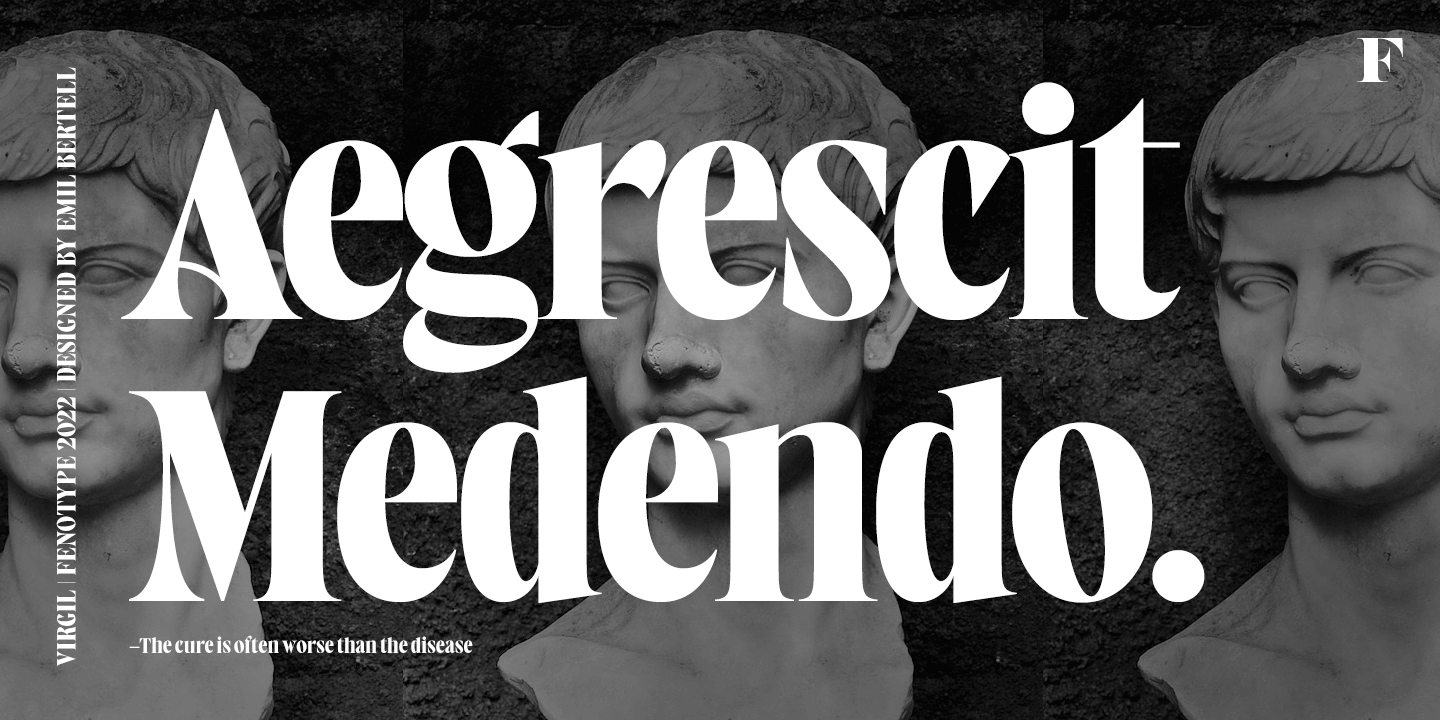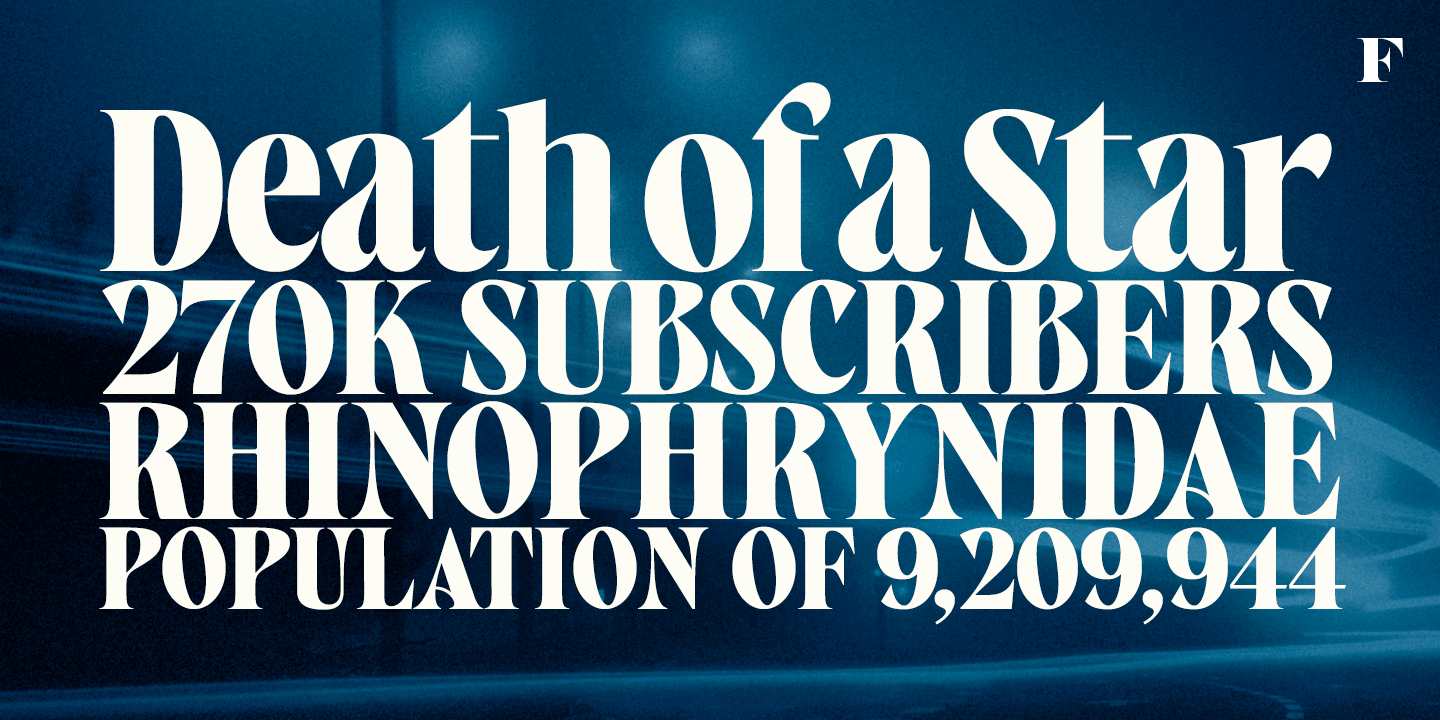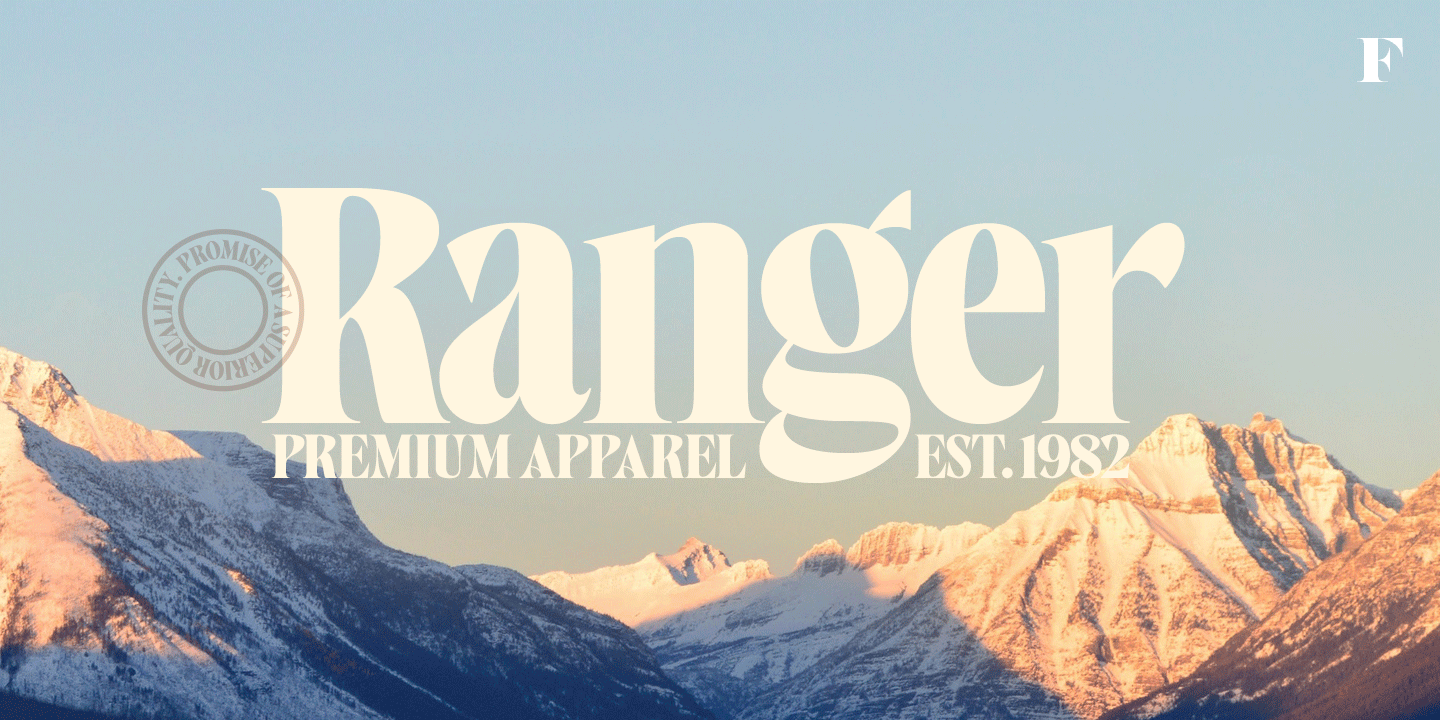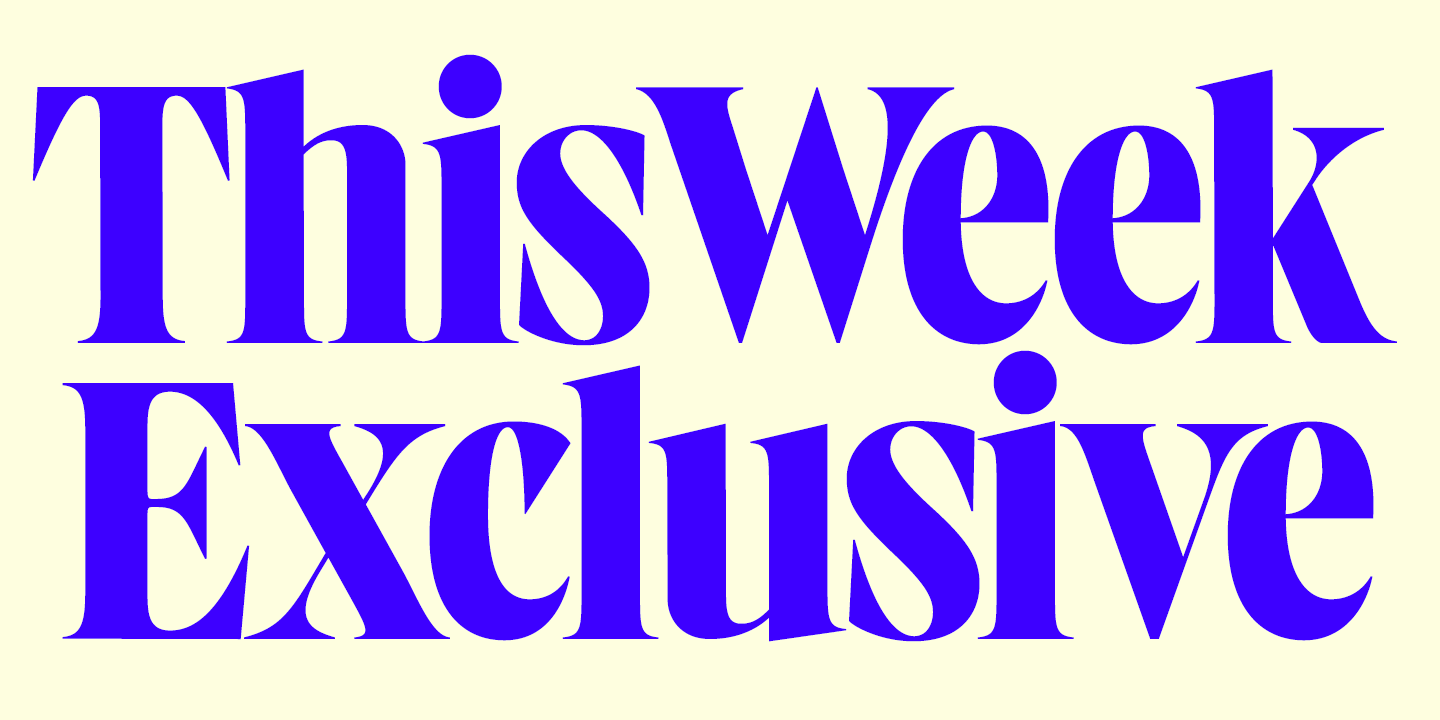
About West West
West West is a high-contrast condensed display serif. West West has extra large x-height making it suitable for efficient choice for distinguishable display use such as headlines, packaging, magazines, posters and advertising, among many others. In large…